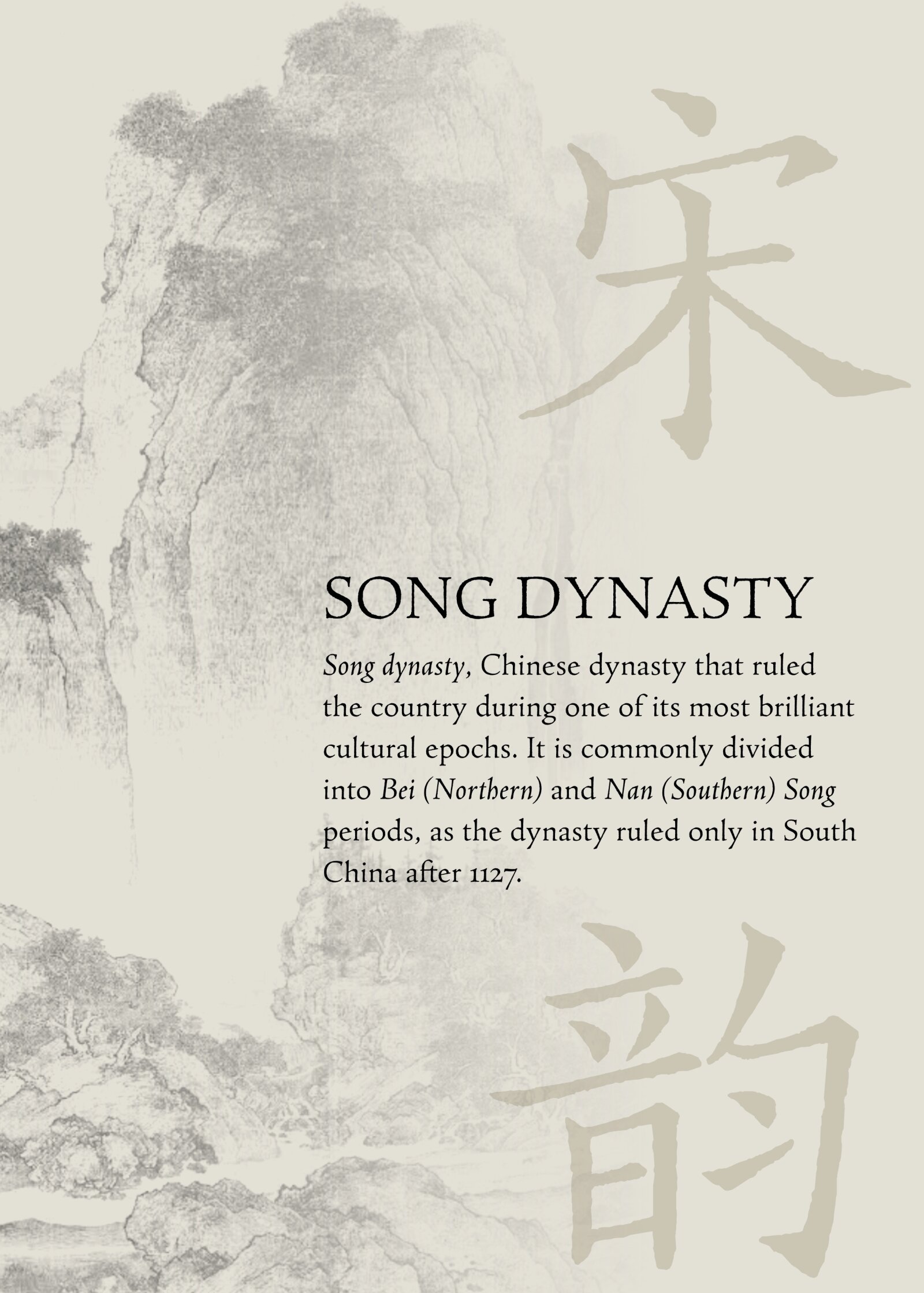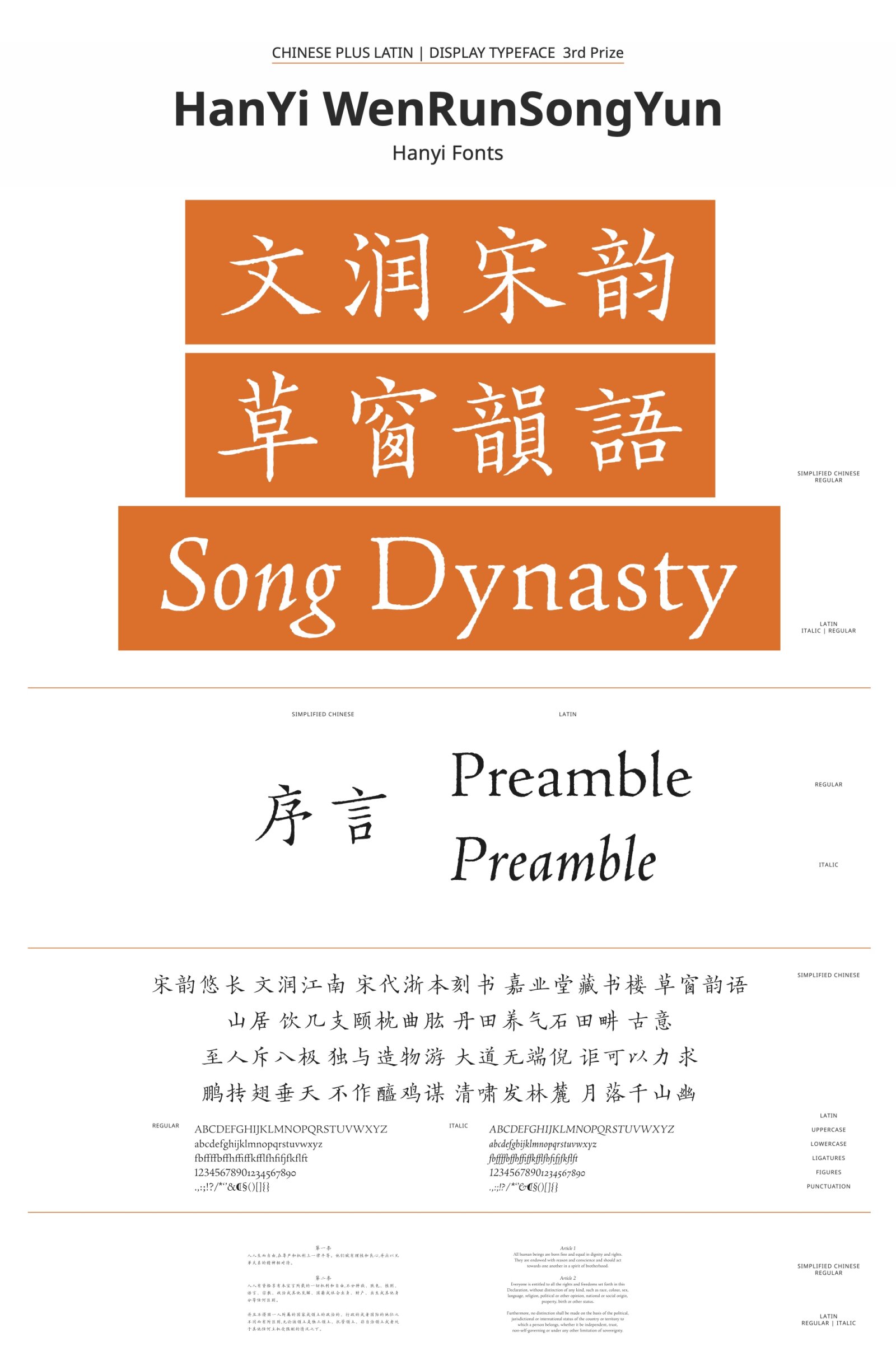
HanYi WenRunSongYun
by Hanyi Fonts
Chinese
This typeface takes Jia Ye Tang's collection "Cao Chuang Yun Yu" as its prototype, adopting the approach of re-creating an ancient appearance to restore the simple and exquisite style of the woodblock printing in the Zhejiang edition of the Song Dynasty. The overall character form is elegant and graceful, with well-organized and exquisite strokes. Infused with the spirit of Ouyang Xun's Style regular script, it embodies the elegance of the Song Dynasty, exuding a subtle ancient charm. Particularly suitable for vertical layout, it is ideal for typesetting ancient texts and cultural art exhibitions.